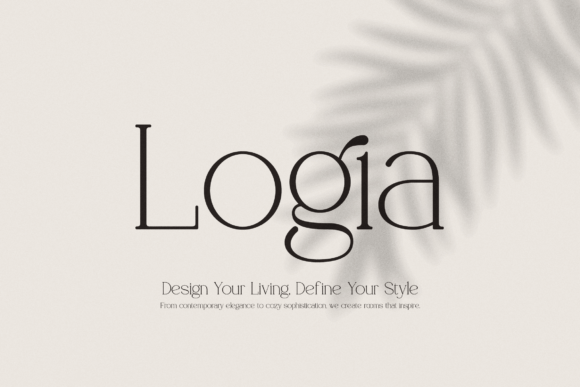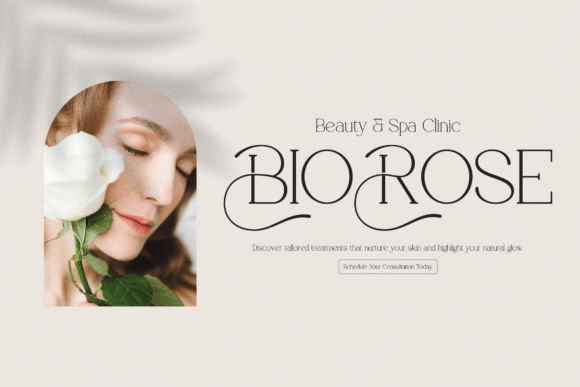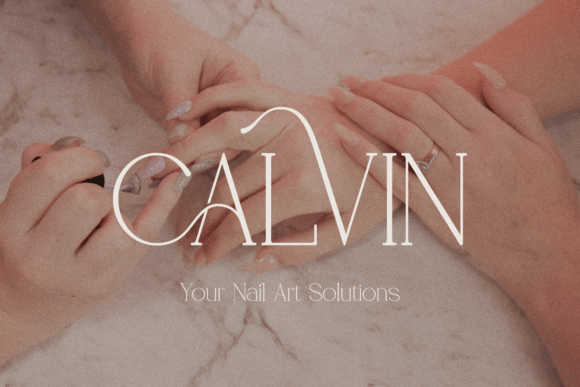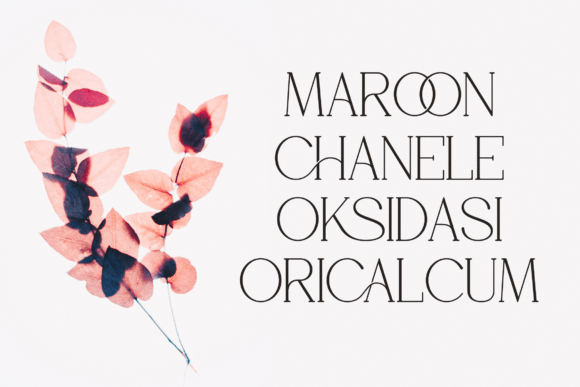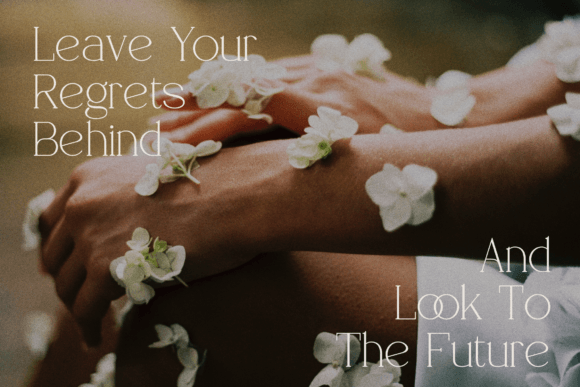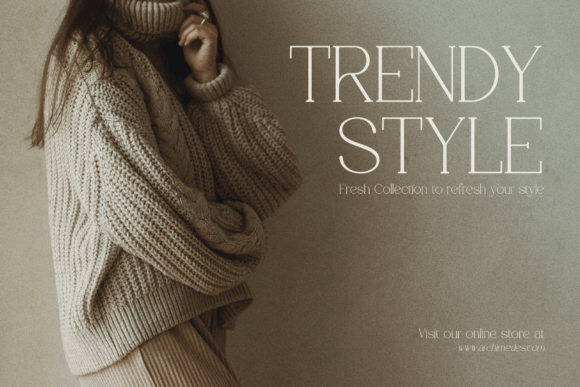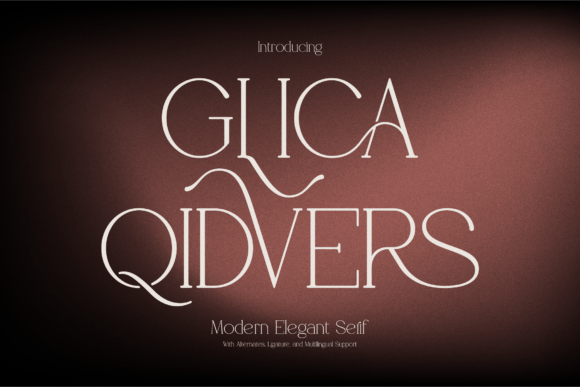
Glica Qidvers Font: Elevate Your Designs with Elegance and Sophistication
In the world of design, typography plays a crucial role in conveying the message and aesthetic of a project. For designers and crafters seeking a font that embodies elegance and sophistication, Glica Qidvers is an exceptional choice. This dainty and elegant serif font is versatile and can be used in a wide range of projects, from logos and branding to packaging, posters, and more.
What is Glica Qidvers Font?
Glica Qidvers is a carefully crafted serif font designed to bring a touch of modern elegance to any project. Its delicate lines and classic serif details make it perfect for designs that require a sophisticated and refined look. Whether you’re working on a logo, a book cover, or a greeting card, Glica Qidvers offers the perfect blend of tradition and modernity.
Key Features of Glica Qidvers Font
- Elegant Serif Design: Glica Qidvers boasts a beautiful serif design that adds a touch of elegance to any project.
- Versatility: This font is suitable for a wide range of projects, including logos, branding projects, homeware designs, product packaging, and more.
- Modern Aesthetic: With its clean lines and classic details, Glica Qidvers brings a modern aesthetic to traditional serif typography.
- Easy to Read: The clear and readable design of Glica Qidvers makes it perfect for body text and headlines alike.
Usage Ideas for Glica Qidvers Font
The versatility of Glica Qidvers makes it suitable for numerous design projects. Here are some ideas to get you started:
- Logos and Branding: Create a lasting impression with a logo that exudes elegance and sophistication.
- Homeware Designs: Add a touch of class to your homeware designs, from stationery to kitchenware.
- Product Packaging: Stand out on store shelves with packaging that features the elegant Glica Qidvers font.
- Mugs and Apparel: Design beautiful mugs, t-shirts, and other apparel that showcase your style.
- Quotes and Posters: Create inspiring quotes and posters that convey your message with elegance.
- Book Covers and Name Cards: Give your book covers and name cards a professional and sophisticated look.
- Invitation and Greeting Cards: Make your invitations and greeting cards special with a font that speaks of elegance.
- Labels and Watermarks: Use Glica Qidvers for labels and watermarks to add a subtle yet sophisticated touch to your designs.
Why Choose Glica Qidvers Font?
Choosing Glica Qidvers for your design projects comes with numerous benefits:
- Unique Aesthetic: Glica Qidvers offers a unique blend of modern elegance and classic serif details, setting it apart from more common fonts.
- High Versatility: Its suitability for a wide range of projects makes Glica Qidvers a valuable addition to any designer’s toolkit.
- Easy Integration: This font is easy to integrate into various design software, making it convenient to use for designers and crafters.
- Professional Look: Glica Qidvers can help elevate your designs to a professional level, making them more appealing to your audience.
Glica Qidvers is more than just a font; it’s a design element that can transform your projects with its elegant and sophisticated charm. Whether you’re a designer working on a branding project or a crafter creating personalized gifts, Glica Qidvers offers the perfect blend of modernity and tradition. Its versatility, readability, and unique aesthetic make it an excellent choice for anyone looking to add a touch of elegance to their designs.
So, why settle for ordinary when you can elevate your designs with the elegance of Glica Qidvers? Explore the possibilities and let your creativity shine with this beautiful serif font.